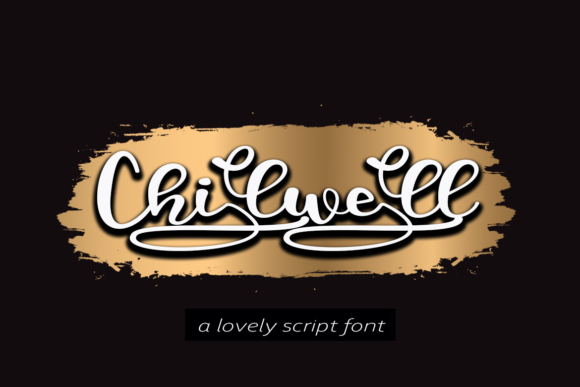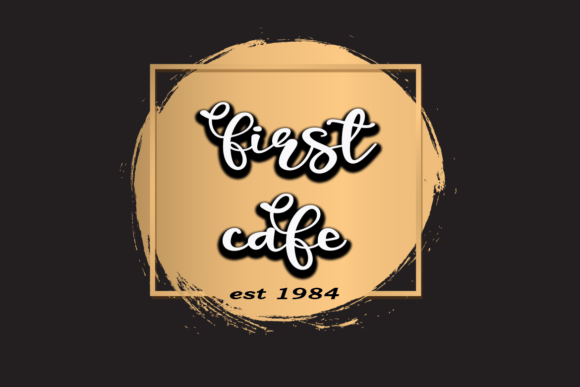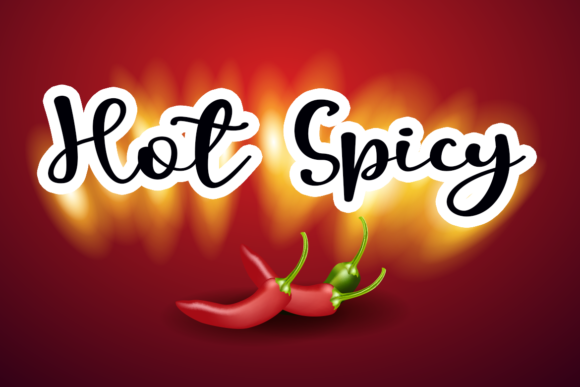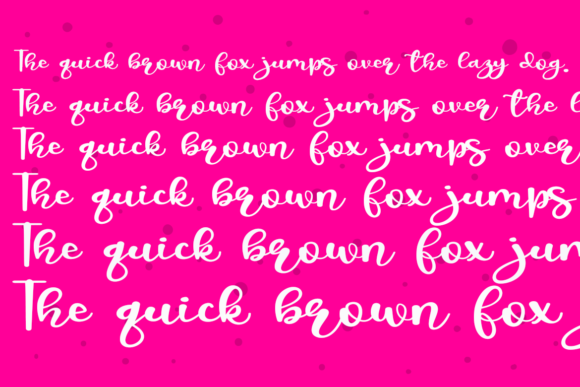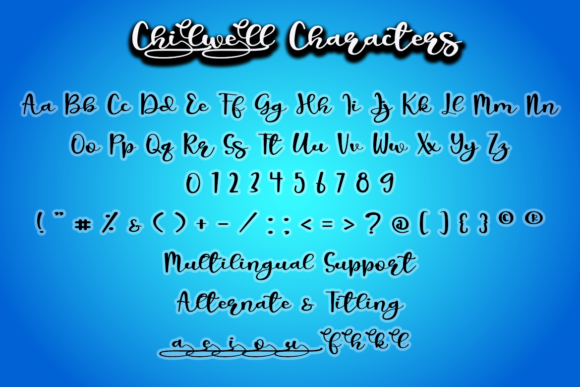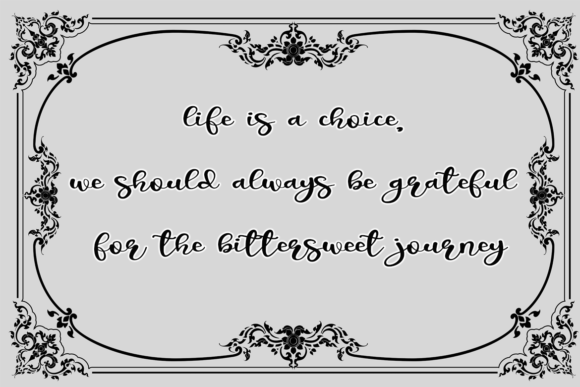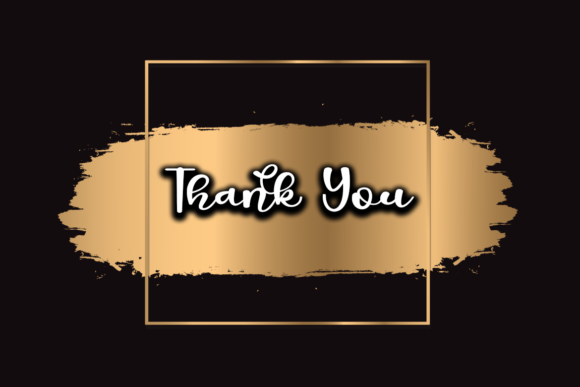
Chilwell Font
About Chilwell Font
Chilwell is an exceptional and enduring handwritten font, characterized by its unique and refined style. Its timeless elegance makes it a perfect choice for a wide range of design projects, from wedding invitations to greeting cards and logos. With its distinct and sophisticated look, Chilwell adds a touch of class and charm to any design that requires a handwritten touch.
Here are some creative ideas to showcase the beauty of Chilwell font in your designs:
1. Wedding Invitations: Create stunning and elegant wedding invitations with Chilwell font, setting the tone for a sophisticated and romantic celebration.
2. Thank You Cards: Design heartfelt thank you cards with Chilwell font, expressing gratitude with a touch of timeless elegance.
3. Quotes and Greeting Cards: Use Chilwell font to highlight meaningful quotes and create beautiful greeting cards that leave a lasting impression.
4. Branding: Infuse your brand identity with the distinct and refined style of Chilwell font, adding a personal and handwritten touch to your logo and branding materials.
5. Business Cards: Make a memorable impact with business cards featuring Chilwell font, leaving a lasting impression on potential clients and partners.
6. Event Invitations: Whether it’s for a special occasion or a corporate event, Chilwell font adds sophistication to event invitations.
7. Social Media Graphics: Use Chilwell font to design captivating social media posts and graphics, attracting attention with its refined and timeless appeal.
8. Stationery: Enhance your stationery designs with the elegance and uniqueness of Chilwell font.
9. Packaging Design: Apply Chilwell font to product labels or packaging, elevating the visual appeal of your merchandise.
10. Art Prints: Create stylish and timeless art prints with Chilwell font, featuring inspiring quotes or phrases.
11. Book Covers: Use Chilwell font for book titles or cover designs, giving your publication a touch of sophistication.
12. Personalized Gifts: Design personalized gifts with Chilwell font, adding a heartfelt and refined touch to your presents.
13. Calligraphy Art: Embrace the beauty of Chilwell font in calligraphy art projects, showcasing its distinct and artistic style.
14. Restaurant Menus: Enhance the elegance of restaurant menus with Chilwell font, creating a sophisticated dining experience.
15. Web Design: Use Chilwell font in web design to add a touch of refinement and personalization to your website.
Chilwell font’s distinct and timeless handwriting style makes it an excellent choice for a variety of design projects. Its refined look and versatility allow it to adapt to various themes and settings, always adding a touch of sophistication and elegance. So, let Chilwell font inspire your creativity and bring a touch of timeless beauty to your designs, leaving a lasting impression on your audience.